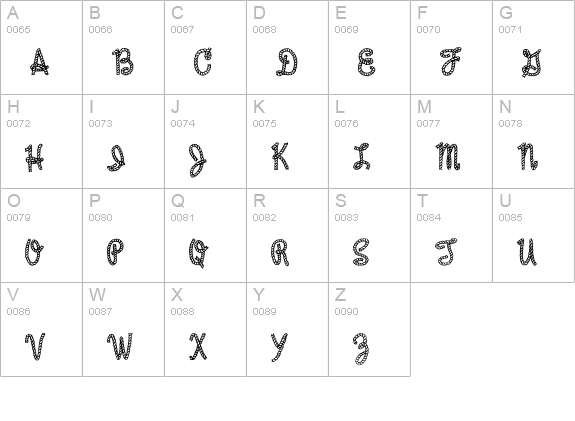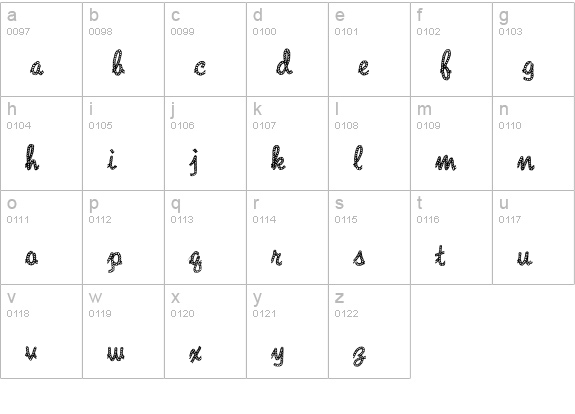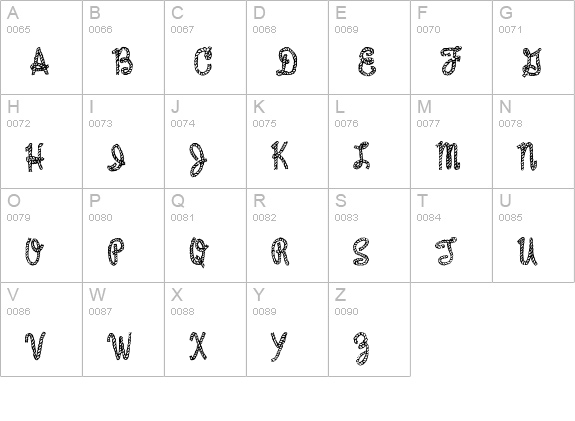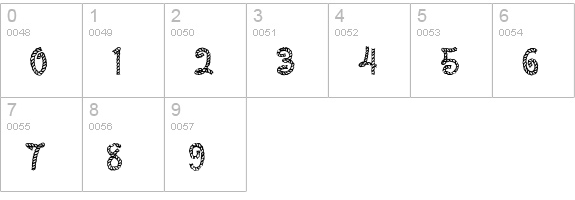
Rope MF Font Details
Rope MF font is a unique typeface that combines modern aesthetics with a touch of vintage charm. Its elegant, flowing lines resemble the twists and turns of a sturdy rope, adding a sense of movement and energy to any design project. Perfect for posters, logos, and branding materials, Rope MF font is versatile and eye-catching. The best part? Rope MF font is completely free to download at FontsMarket.com. Whether you're a seasoned designer or just starting out, this font is a valuable addition to your creative toolkit. With its sleek design and striking visual impact, Rope MF font is sure to make a lasting impression on your audience. Download it today and elevate your designs with this stylish and distinctive typeface.